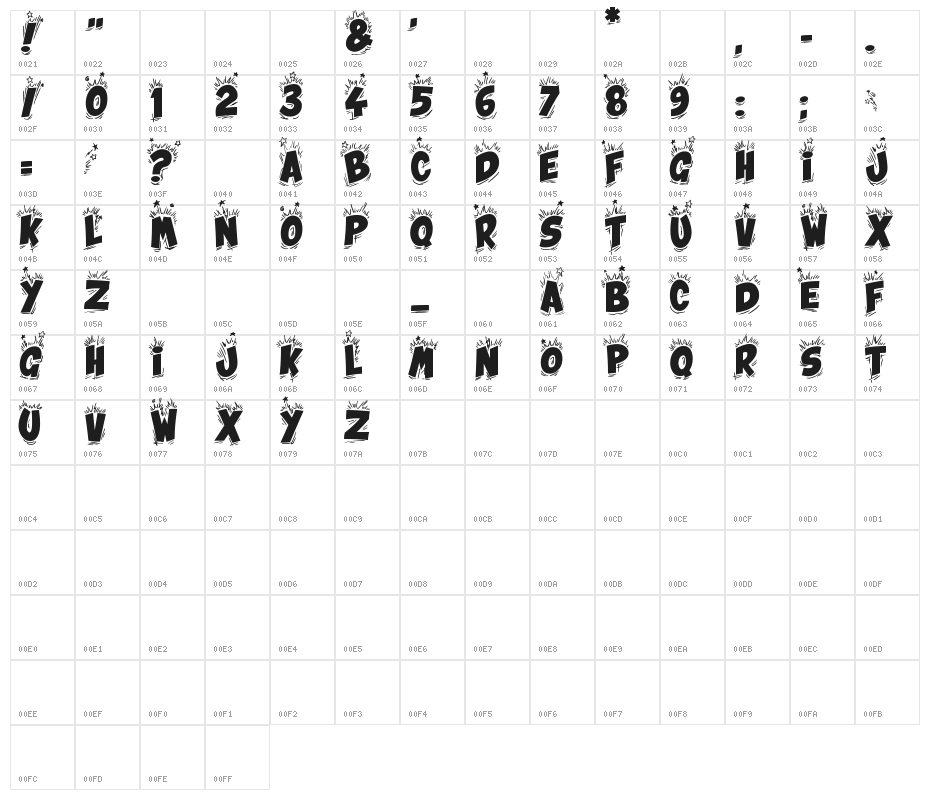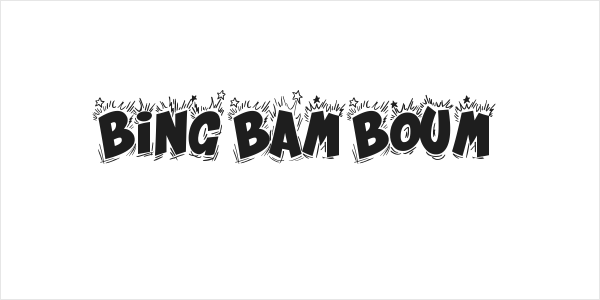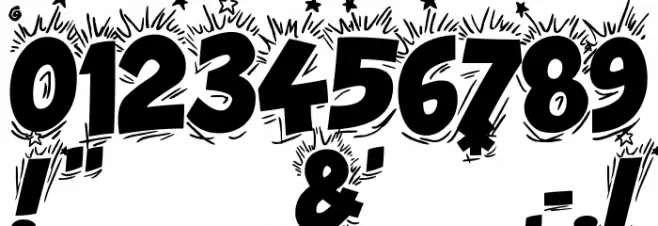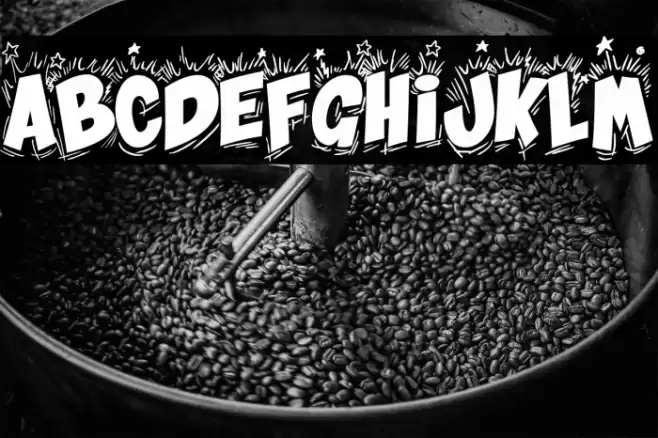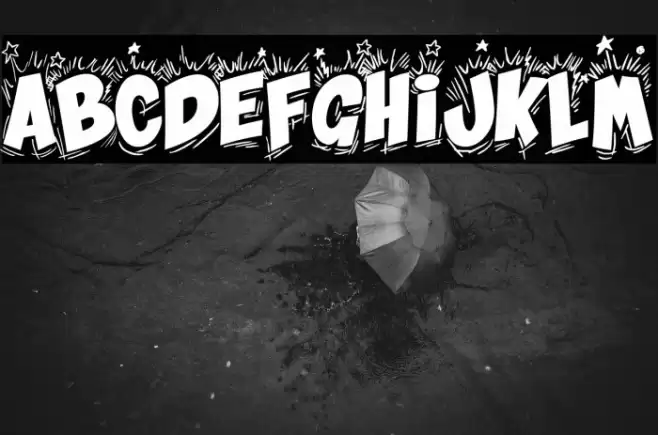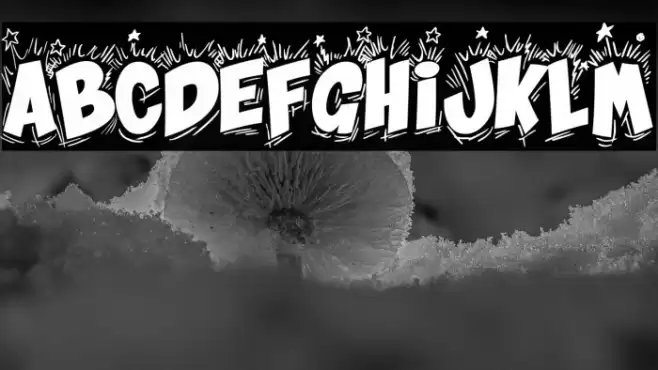
Bing Bam Boum Font
Bing Bam Boum Description
This font is a bold and energetic display typeface, characterized by its thick, dynamic strokes and playful, cartoonish style. Each letter is outlined with a shadow effect, giving it a three-dimensional appearance. The characters are adorned with star and burst motifs, enhancing the lively and whimsical feel. The uppercase and lowercase letters maintain a consistent style, with rounded edges and exaggerated proportions, making them highly legible and impactful. The numbers and special characters follow the same design principles, ensuring uniformity across the typeface.
| Overall Style | Playful, Cartoonish, Energetic |
| Use Case | Headlines, Posters, Branding |
| Proposed Projects | Ideal for comic books, children's books, playful branding, and eye-catching posters. |